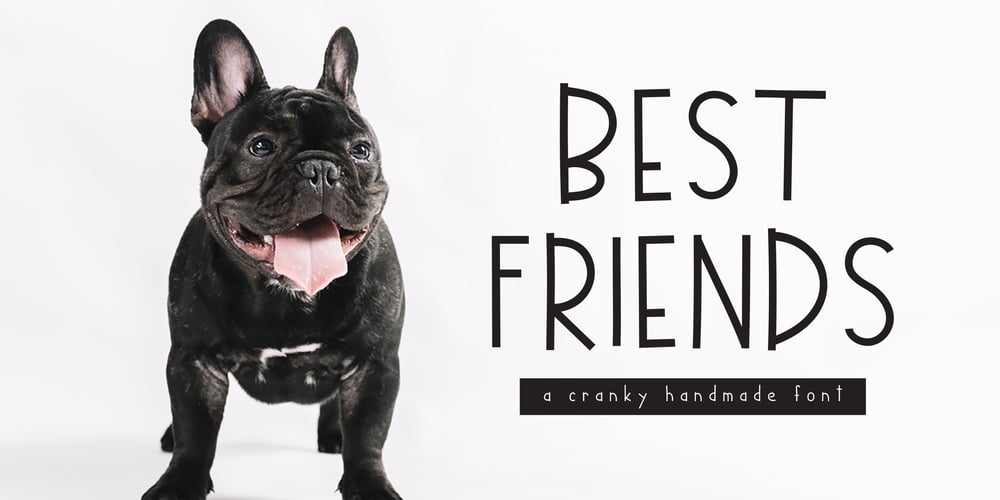
Best Friends Font Family was designed by Nadezda Gudeleva and published by Nadezda Gudeleva. Best Friends contains 2 styles and family package options. Best friend is a fun and cranky handmade font. Perfect for cards, posters, t-shirt design and also other ideas. Inspired by lovely dogs:)